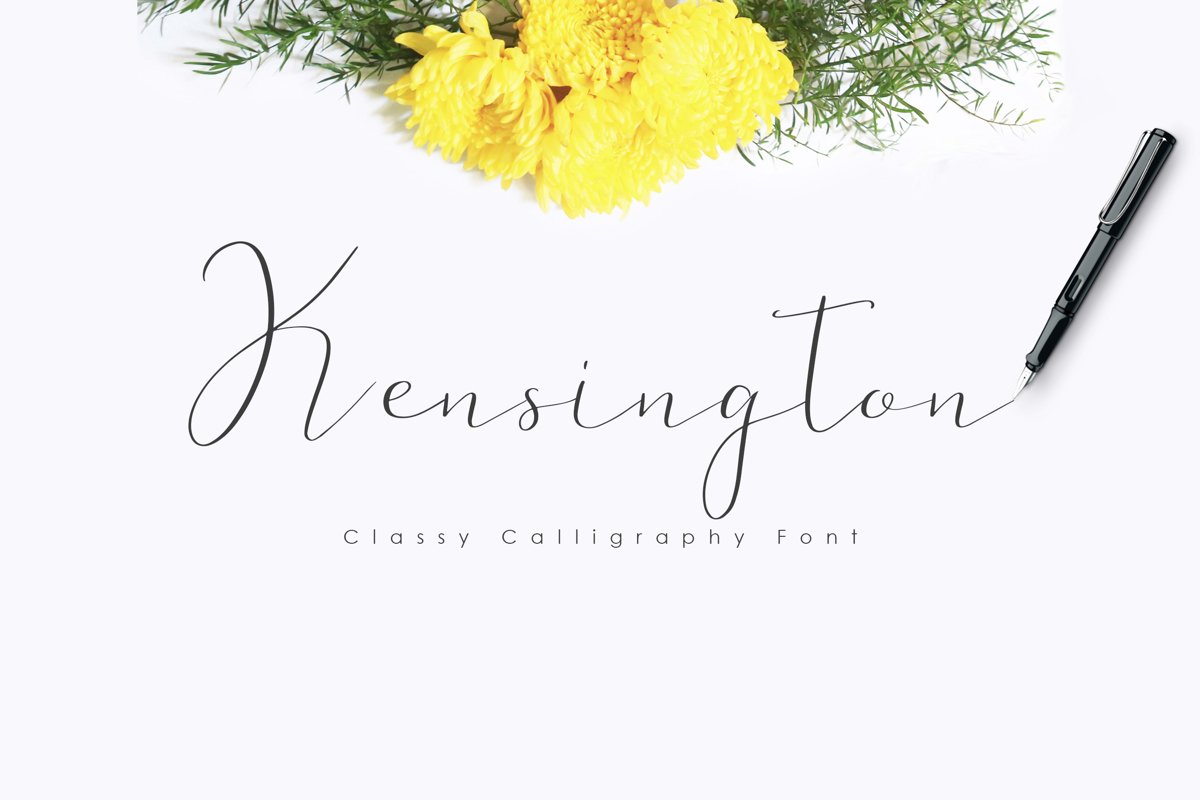
Kensington is a new style font, looked elegant and beautiful. This
font will give your designs that fresh, the fonts are great for product
logo,wedding card logo, Banner, Graphic design, clothing brand logo, and
much more.
FEATURED:
- Uppercase,
- Numeral
- International Glyphs